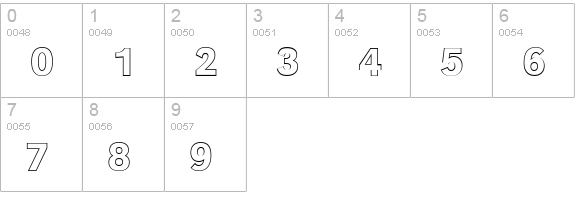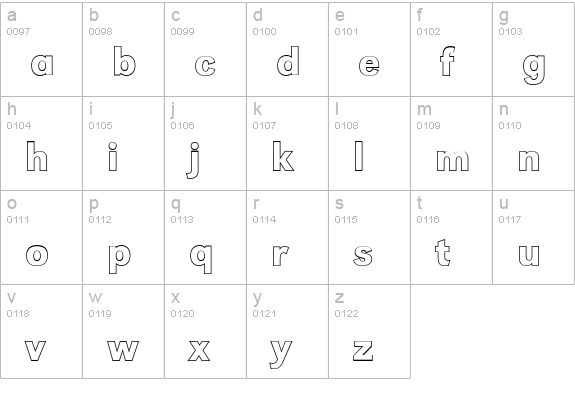
GroteskOu-Medium-Regular is a balanced, medium-weight variant in the GroteskOu typeface family \xE2\x80\x94 well suited to sub-headlines, navigation, and balanced editorial work.
GroteskOu-Medium-Regular is a versatile and modern sans-serif font that exudes confidence and professionalism. With its clean lines and balanced proportions, this font is perfect for a wide range of design projects, from branding to editorial design. The medium weight of the font strikes the perfect balance between readability and impact, making it ideal for both headlines and body text. Best of all, GroteskOu-Medium-Regular is free to download at FontsMarket.com. Whether you're a designer looking to add a sleek touch to your projects or a business in need of a fresh new look, this font will elevate your designs with its contemporary style and timeless appeal. Don't miss out on this opportunity to enhance your creative work with GroteskOu-Medium-Regular – download it today and start making a statement!